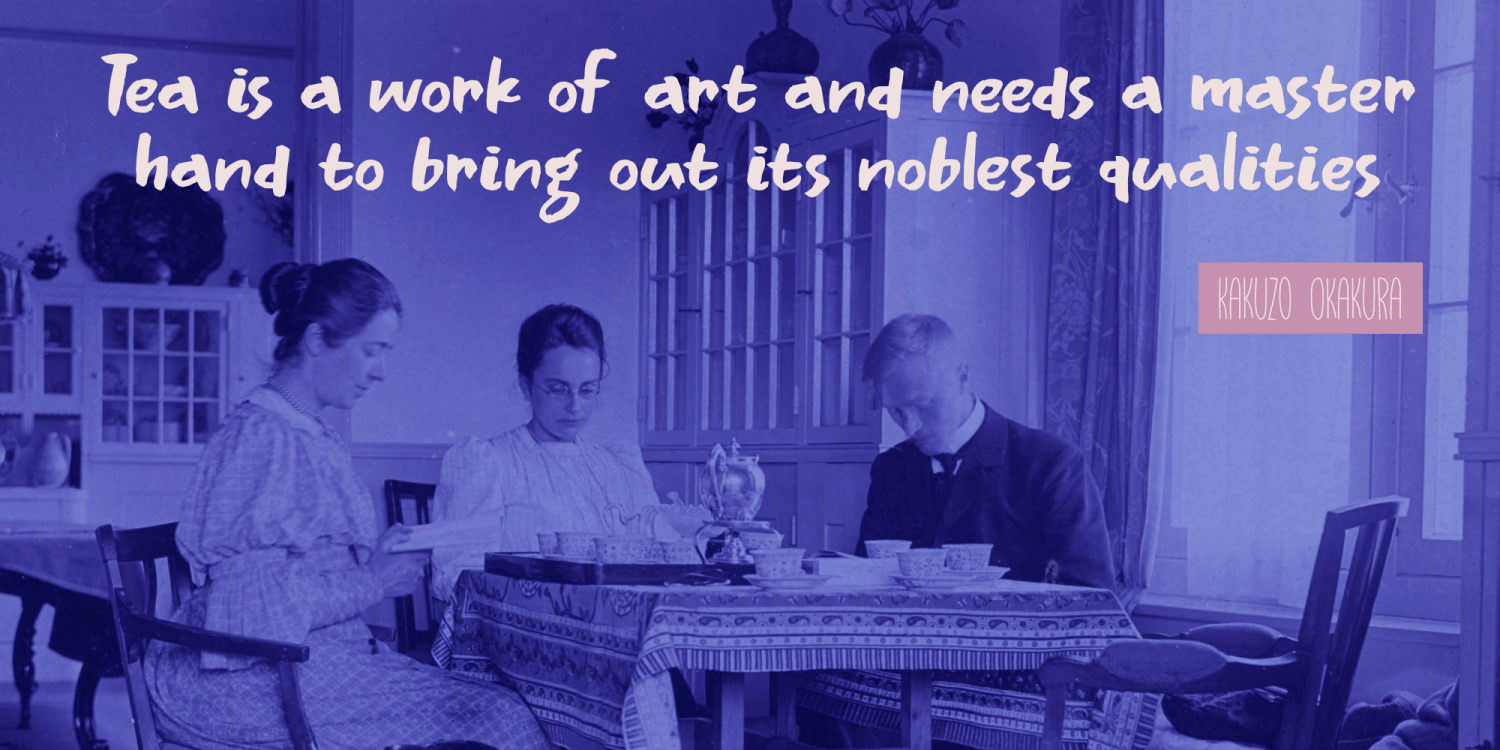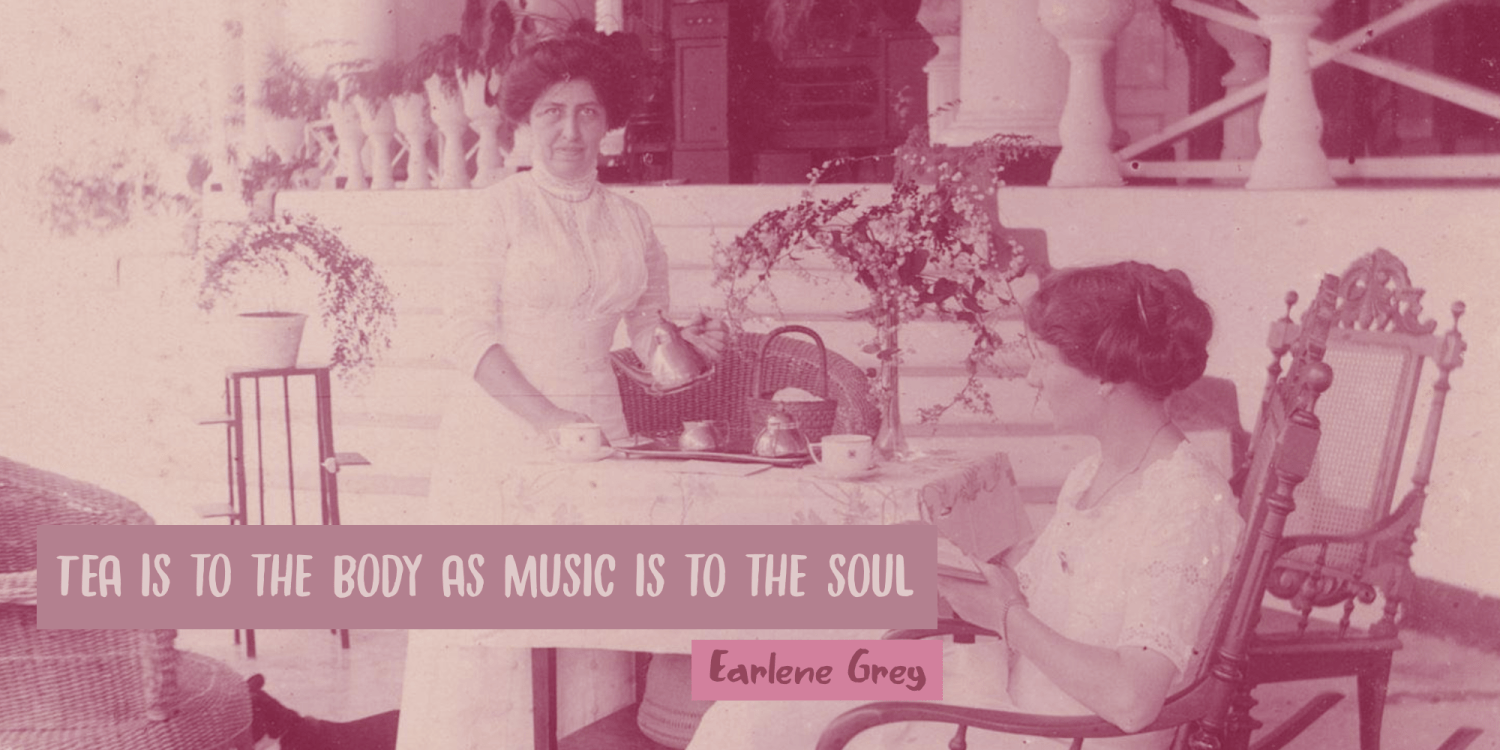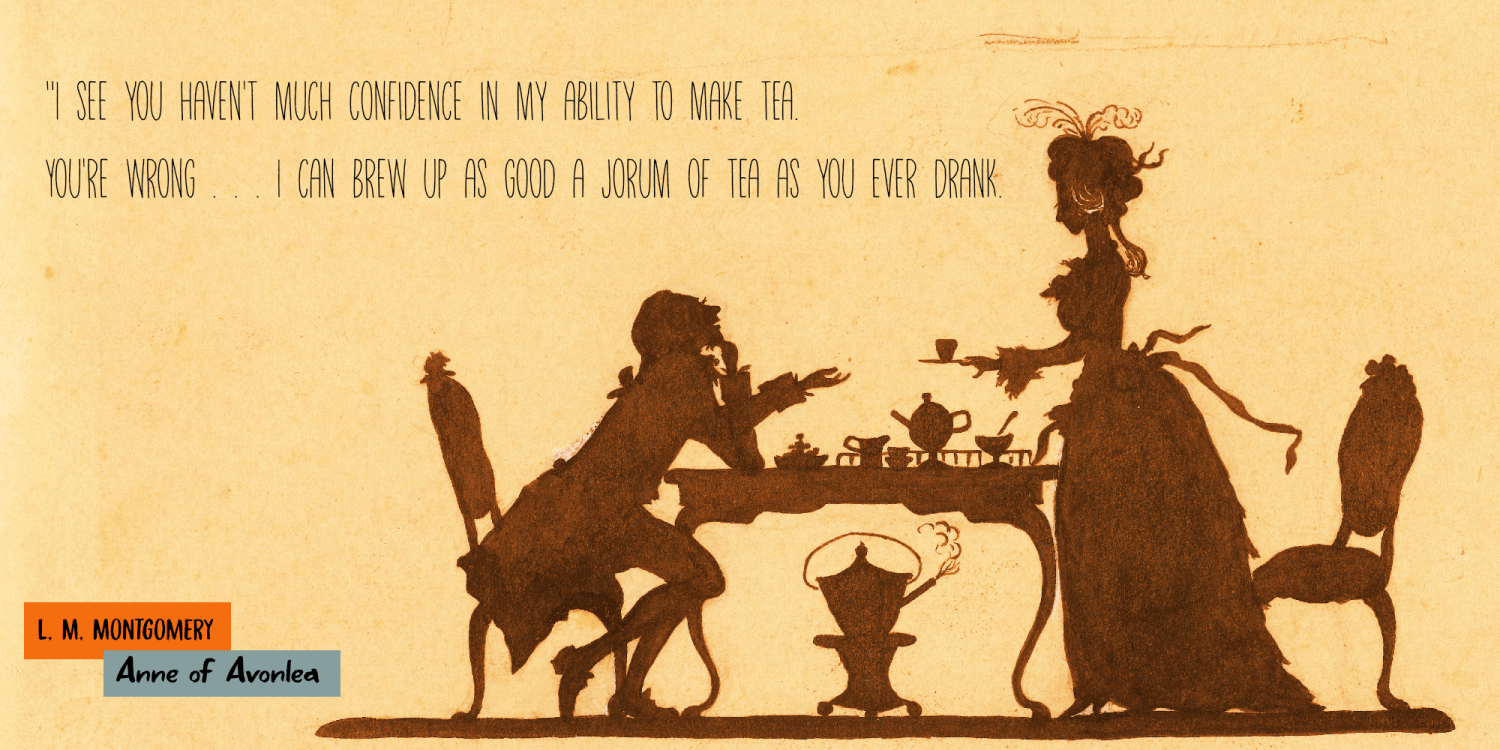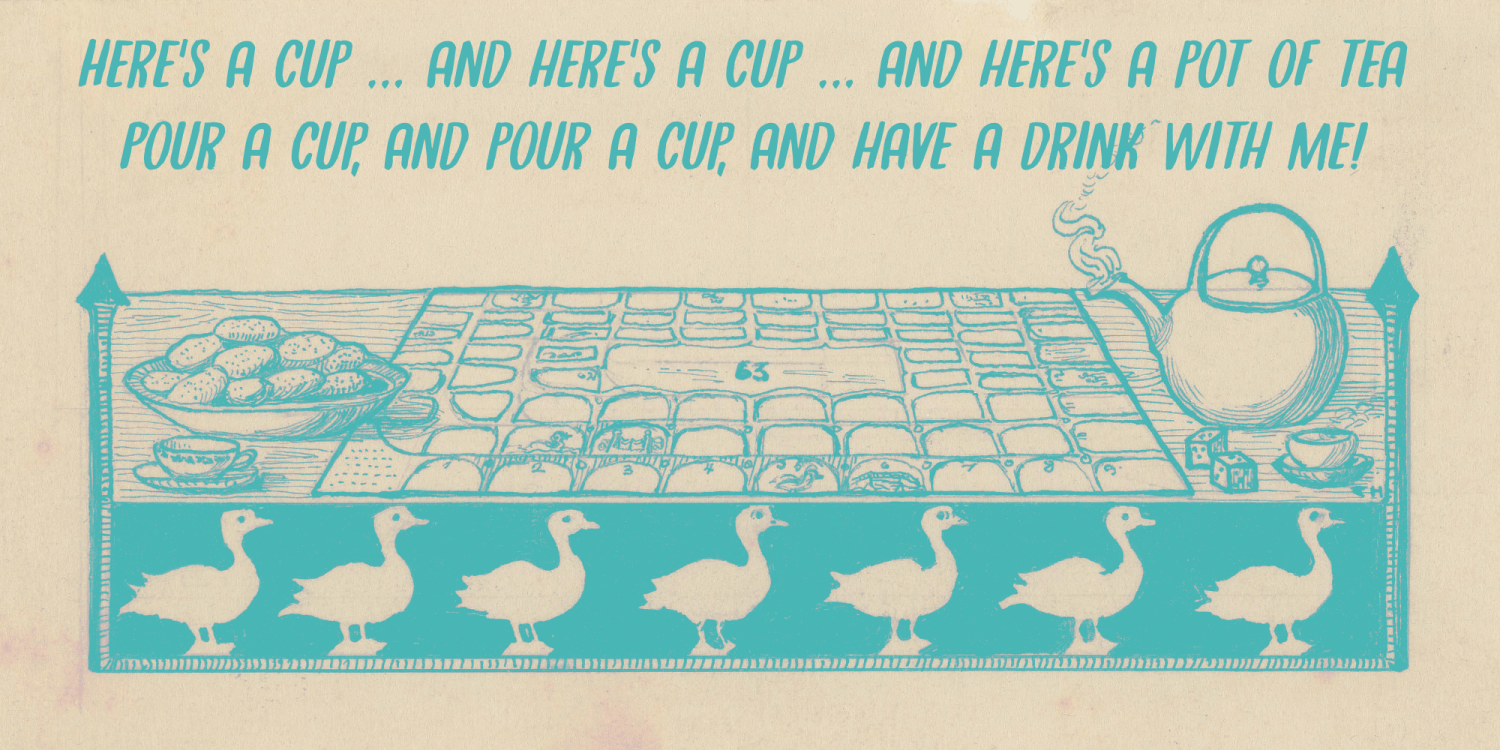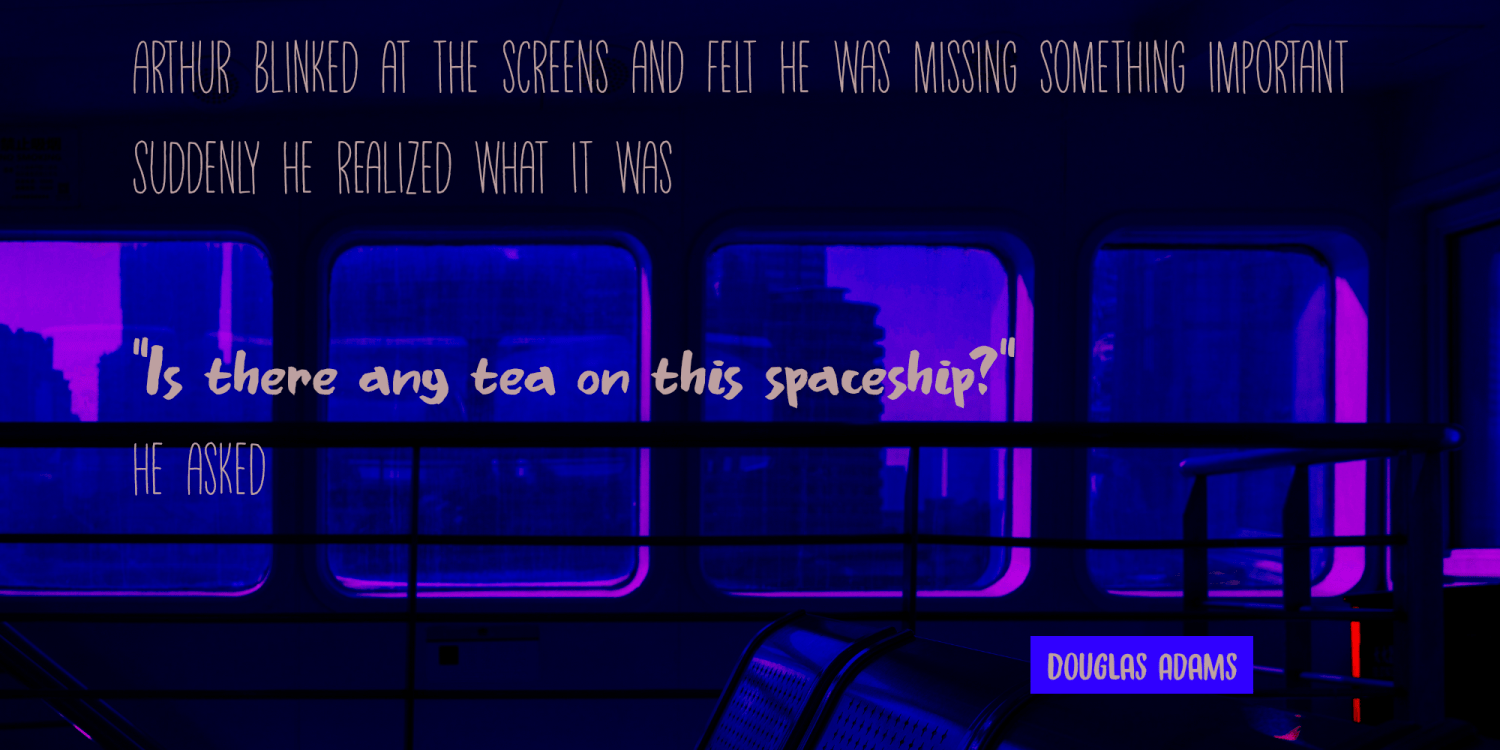
Tea For Two
My wife likes drinking tea a lot. I, on the other hand, prefer coffee. When I contracted covid (just before it became a 'thing', my tastebuds stopped working and coffee tasted like dishwater. I then started drinking tea, but - as a coffee loving person - I prefer my tea to be the English variety: nice and strong with lots of flavour.
Tea For Two is a handmade font family. All three fonts (and their Italics) work nicely together, so let your creativity loose!
Tea For Two by Hanoded